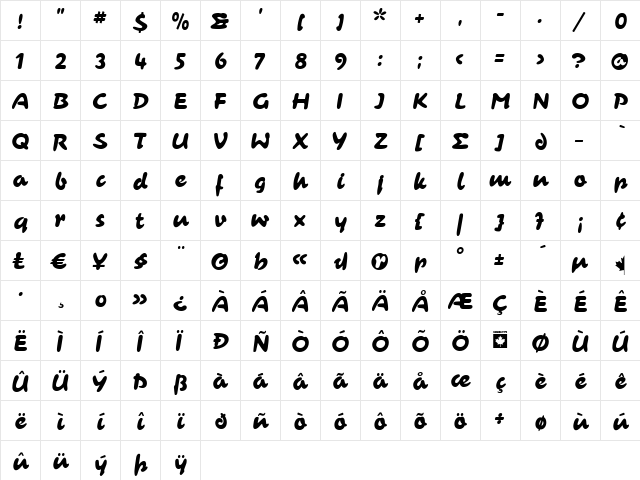
Bruschetta Regular
Design Context for Bruschetta Typeface
Bruschetta is a composed and adaptable typeface that performs quietly and consistently across a wide range of design contexts.